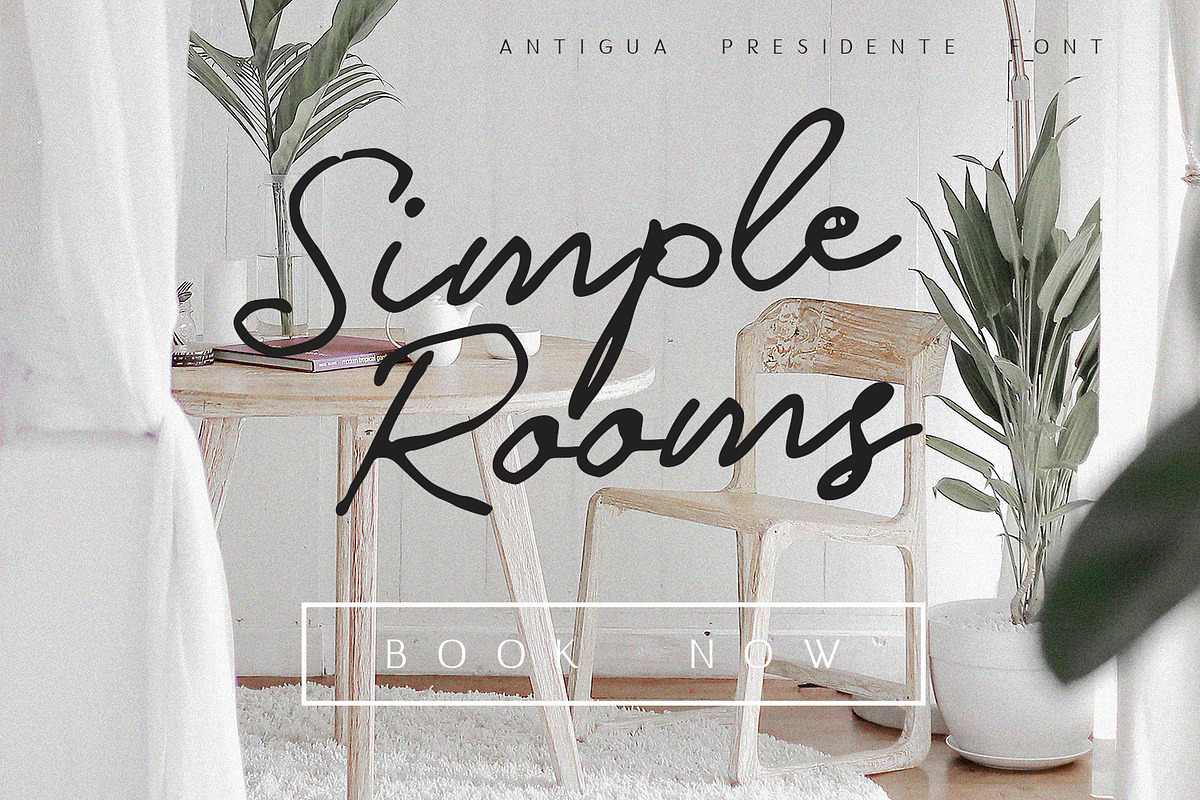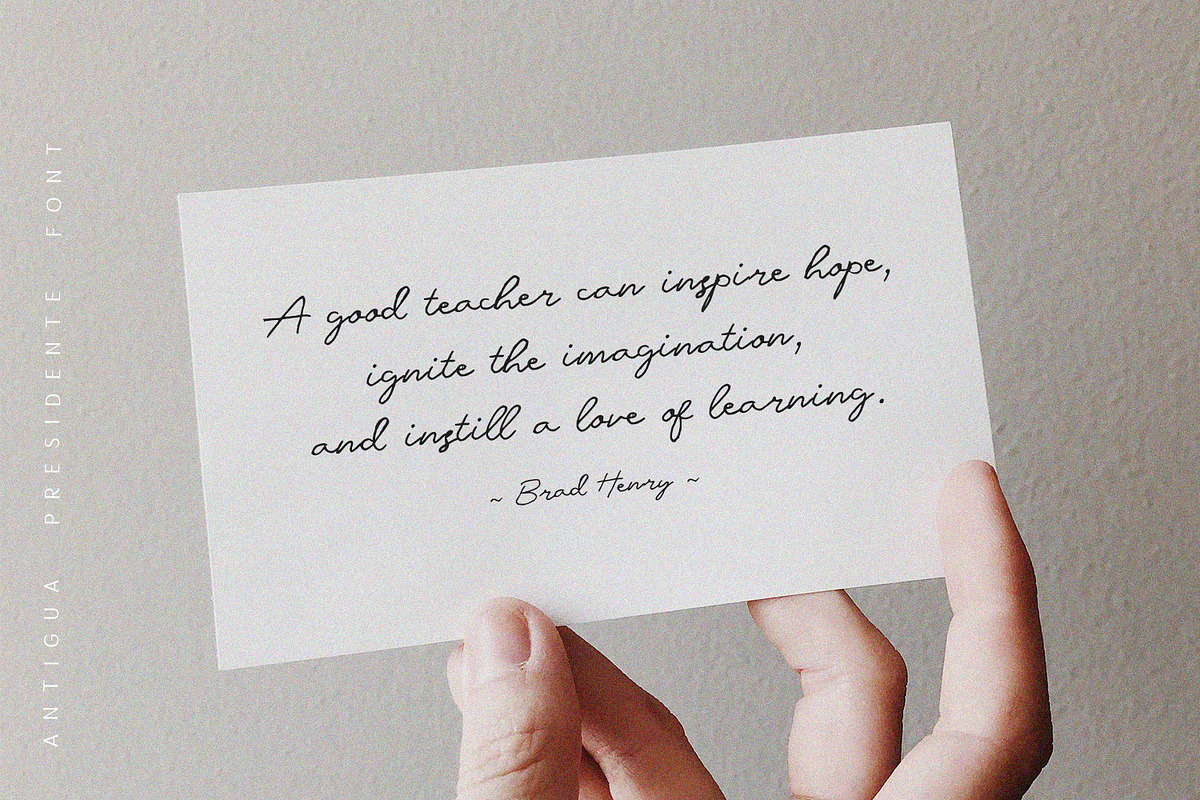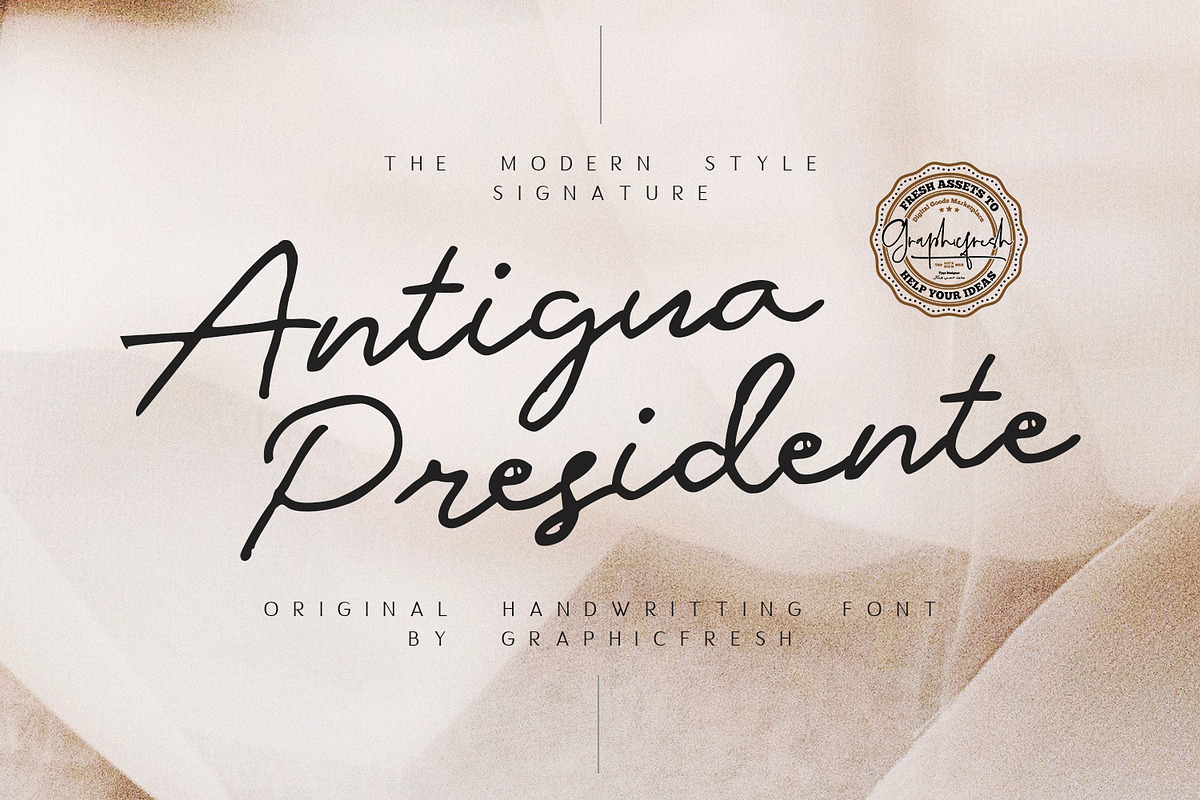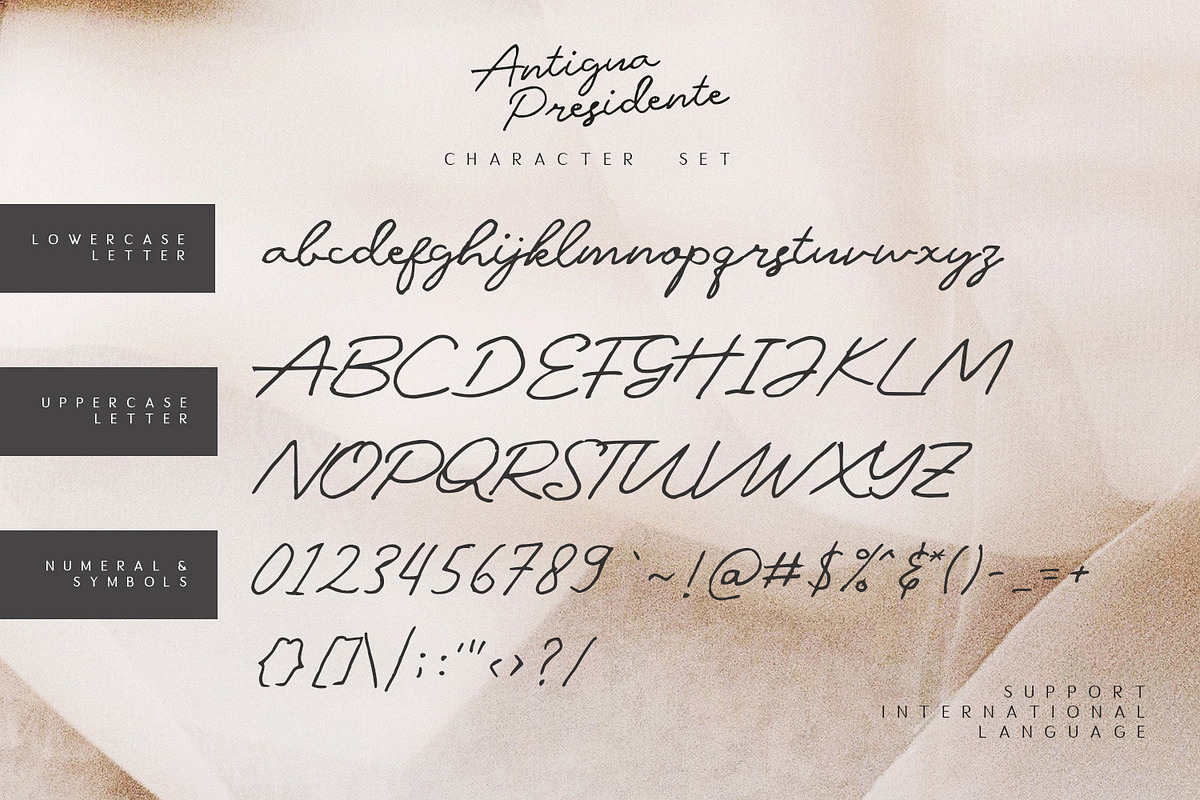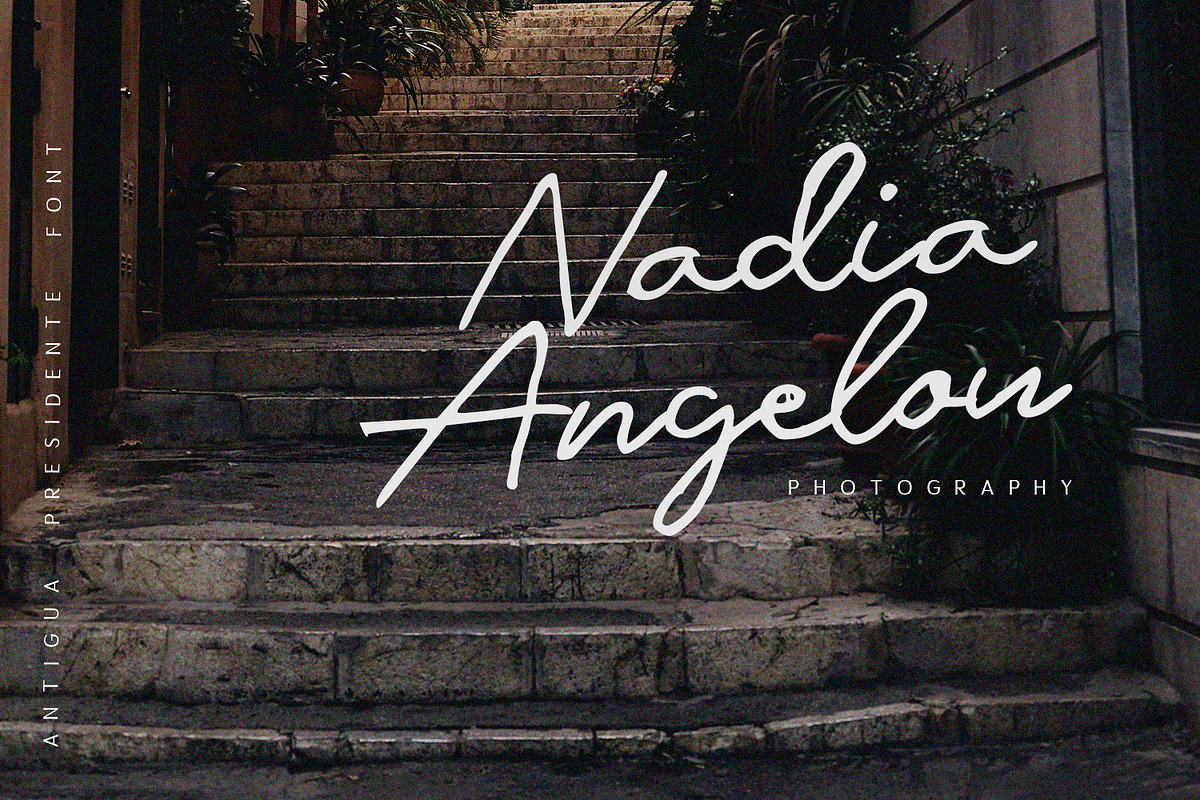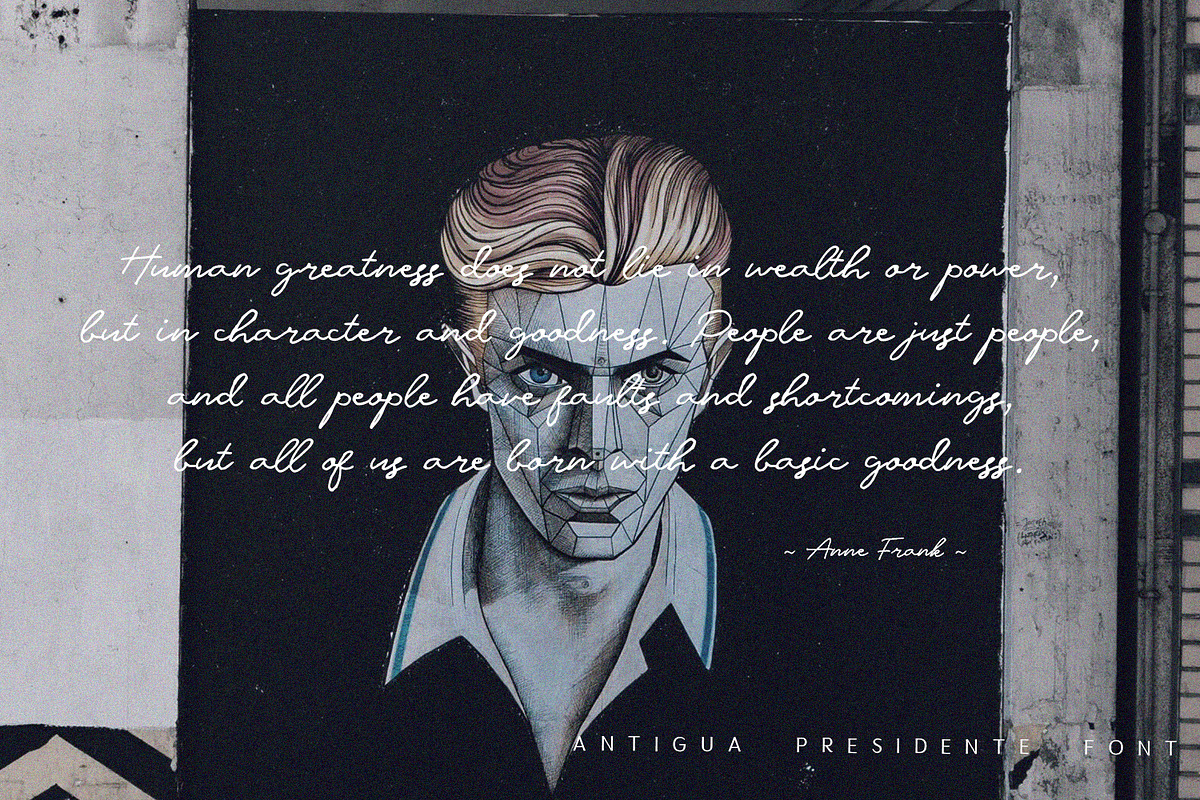
Antigua Presidente - Script Font
I am looking for a good time to cross out writing. Until finally I got an interesting inspiration, then I took a pen and I wrote it on a piece of paper until it became an interesting writing. From this sketch, I made this font. So, this font is from scratch without any additions.
Antigua Presidente - Script Font - A Handwritting script and unique character! it's perfect for logos, name card, magazine layouts, invitations, headers, or even large-scale artwork.